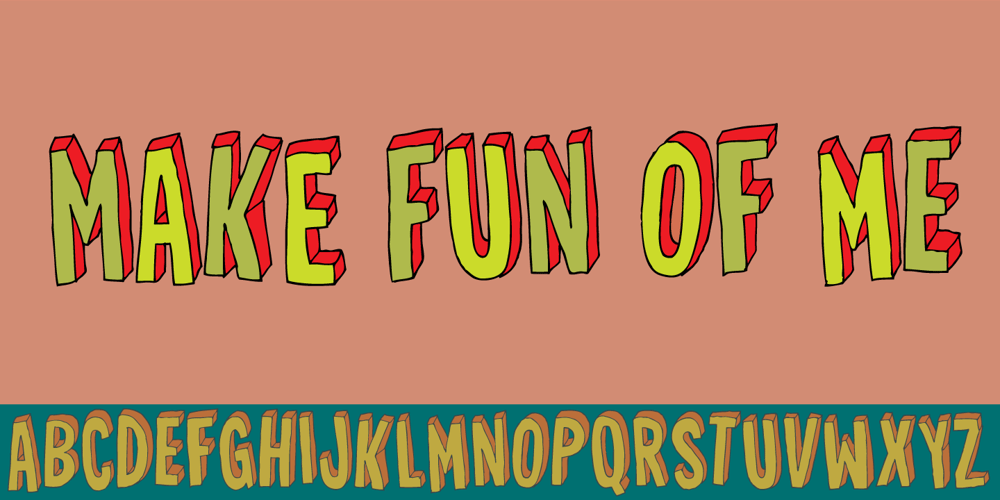
Make Fun Of Me Font Family was designed by Jakob Fischer and published by PizzaDude.dk. Make Fun Of Me contains 1 styles and family package options. This 3D lettering font was done with my inky ballpoint pen. Comes with ligatures for double lettering and alternate letters in upper- and lowercase.